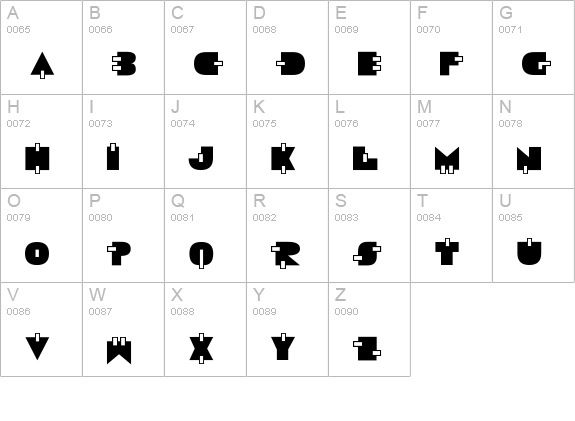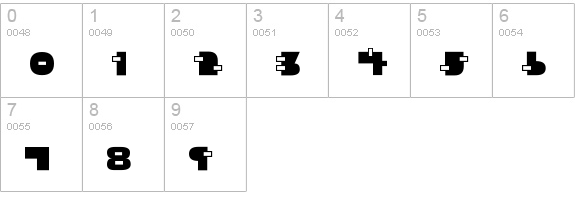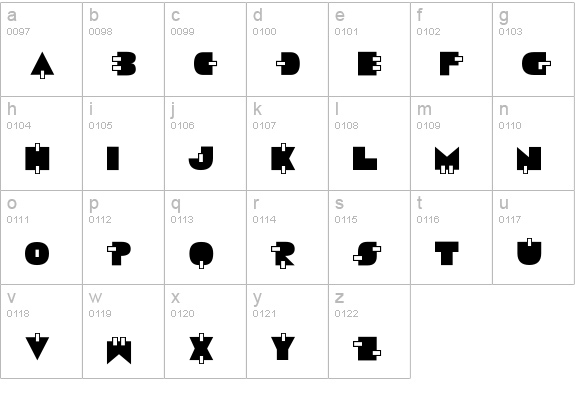
Introducing Video Star font, a mesmerizing display typeface that will transport your designs into the spotlight. This font is the perfect choice for those seeking a bold and captivating aesthetic to captivate their audience. With its distinct and eye-catching letterforms, Video Star font is designed to make a lasting impression. Whether you're creating posters, logos, or social media graphics, this font will effortlessly elevate your designs to a whole new level of professionalism and creativity. The Video Star font is the epitome of versatility, offering a wide range of weights and styles to suit any project. From sleek and modern to vintage and retro, this font has got you covered. Its unique combination of sharp angles and smooth curves creates a visually striking aesthetic that demands attention. But what makes Video Star even more enticing is the fact that it is available for free download at FontsMarket.com. Yes, you read that right – this stunning font can be yours without spending a dime! FontsMarket.com is a trusted source for high-quality fonts, and Video Star is just one of the many incredible options you'll find there. So why wait? Give your designs the star treatment they deserve with Video Star font. Download it for free at FontsMarket.com and let your creativity shine like never before.